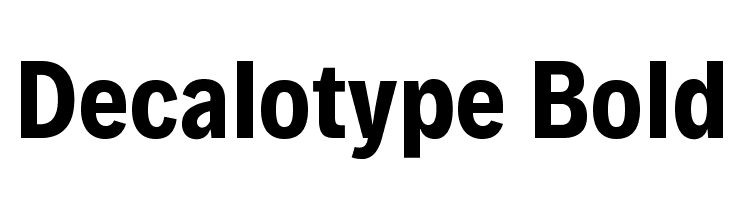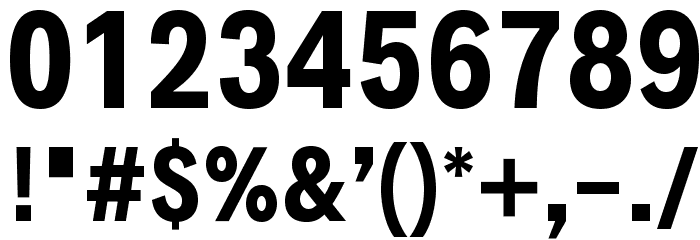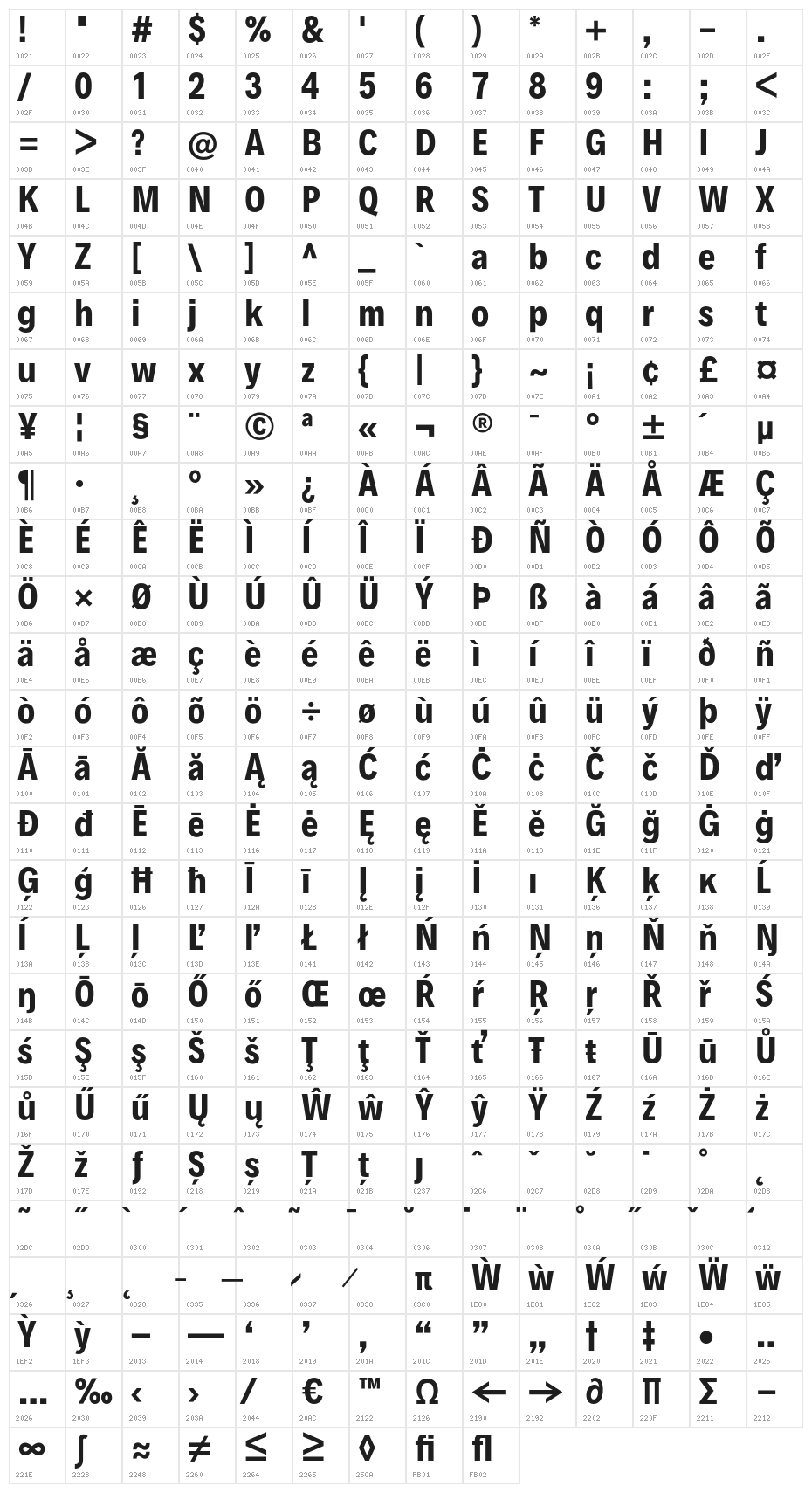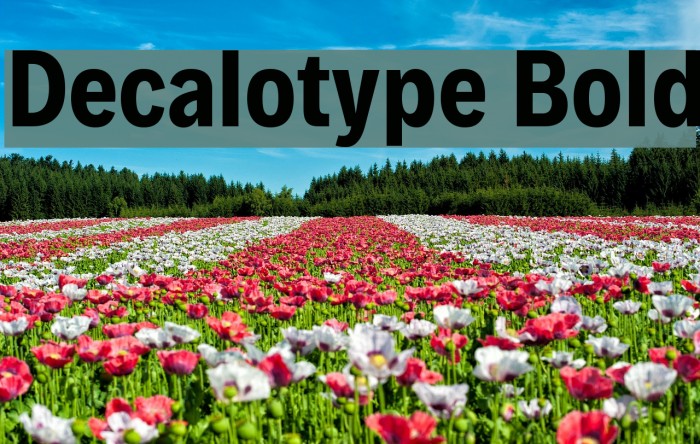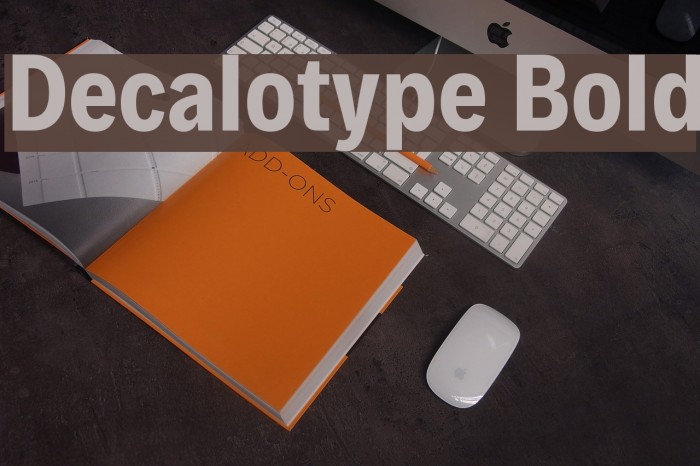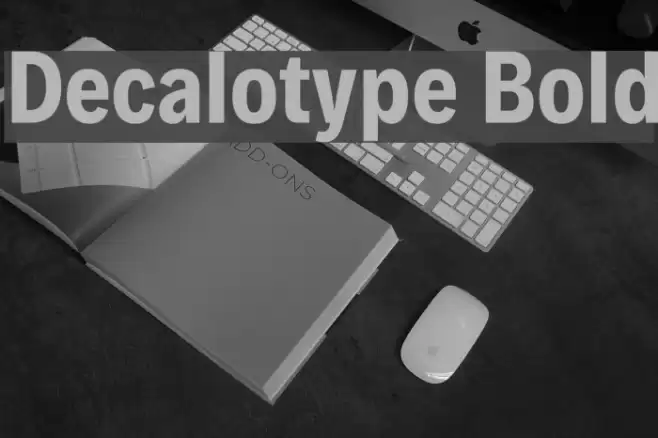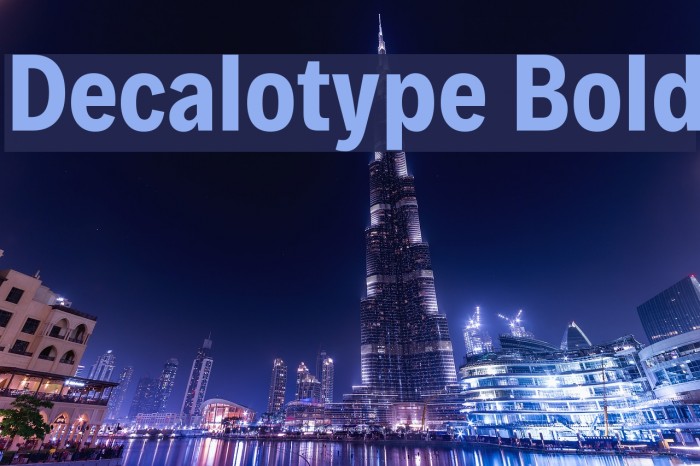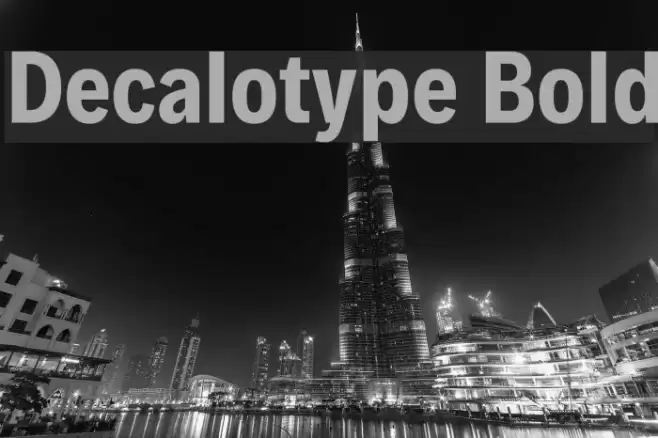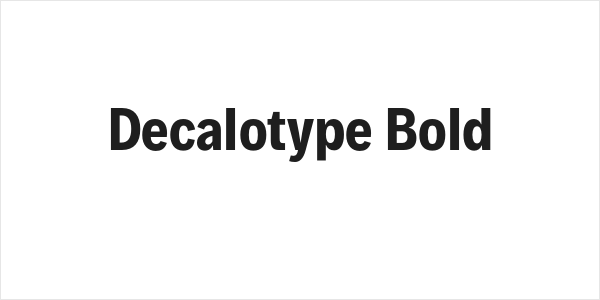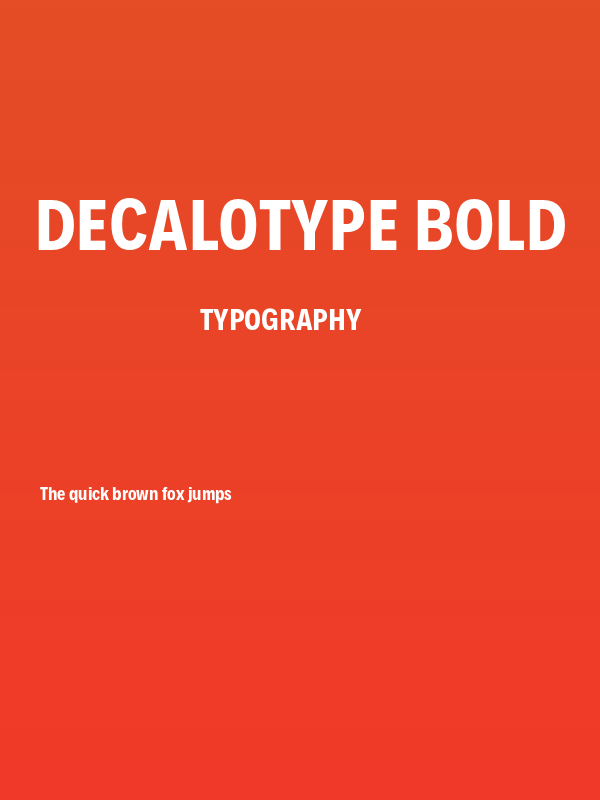
Decalotype Bold Font
Decalotype Bold Description
This typeface features bold, clean lines with a modern sans-serif style. The characters are well-defined and uniform, offering excellent readability. The uppercase and lowercase letters maintain a consistent weight, contributing to a balanced appearance. The numerals are clear and distinct, making them suitable for various applications. Special characters are well-integrated, maintaining the overall aesthetic of the font. The design is straightforward yet impactful, making it versatile for both digital and print media.
| Use Case | Headlines, Logos, Advertising |
| Proposed Projects | Ideal for branding, advertising, headlines, and digital content where clarity and impact are essential. |